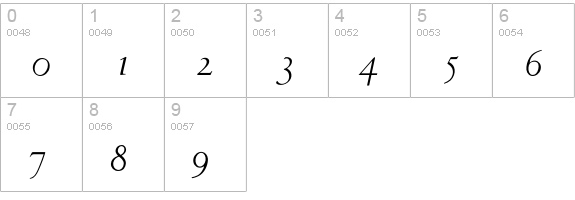
ArmandItalic Font Details
ArmandItalic font is a versatile and elegant typeface that exudes sophistication and style. Its sleek, italic design adds a touch of modernity to any project, making it perfect for both professional and creative use. With its clean lines and graceful curves, ArmandItalic font is a standout choice for branding, advertising, and editorial design. The best part? ArmandItalic font is completely free to download at FontsMarket.com. Whether you're working on a website, packaging design, or a printed publication, this font will elevate your work and give it a polished and refined look. Don't miss out on this fantastic opportunity to enhance your projects with the timeless beauty of ArmandItalic font. Download it today and get started on creating stunning designs with ease.